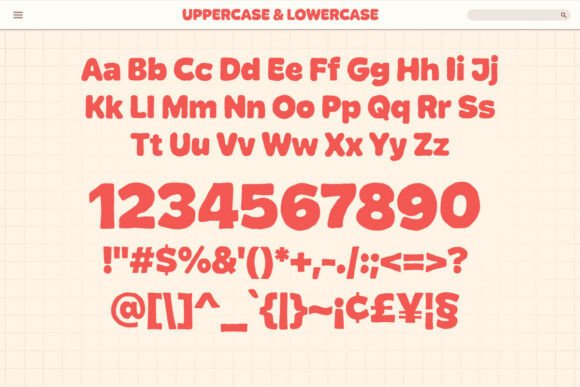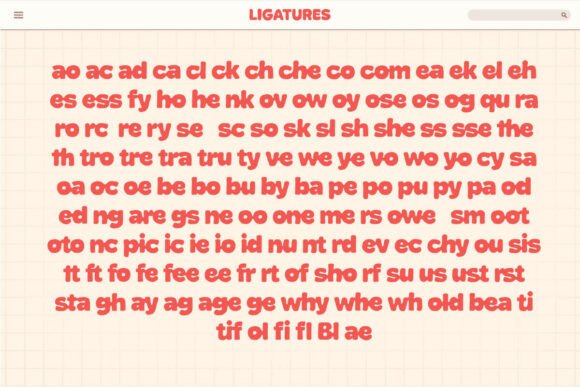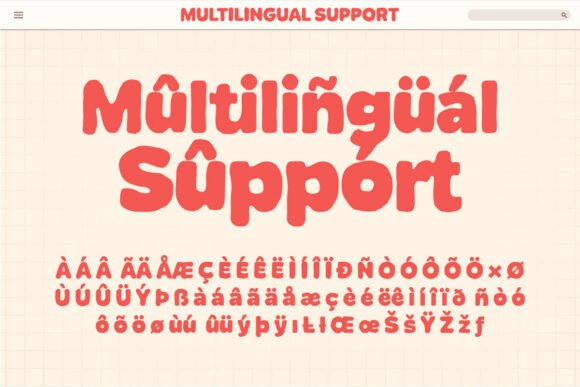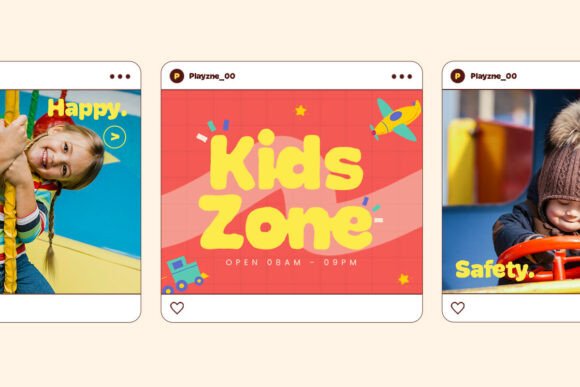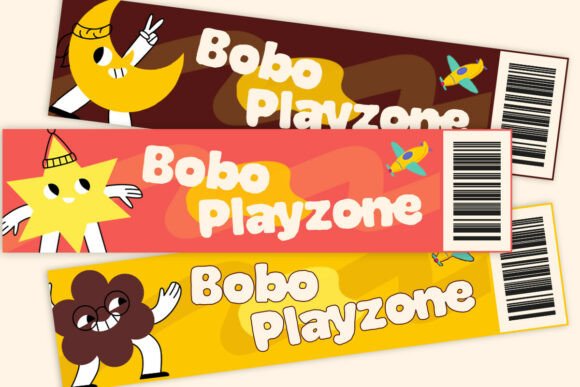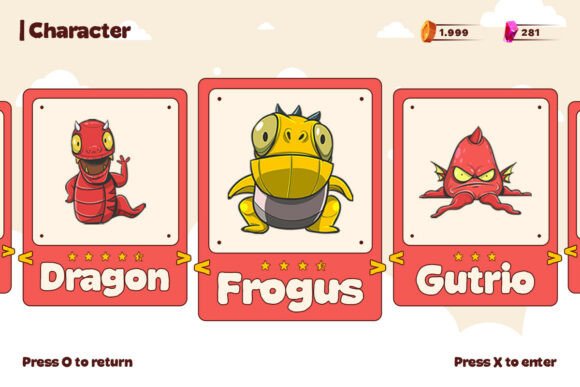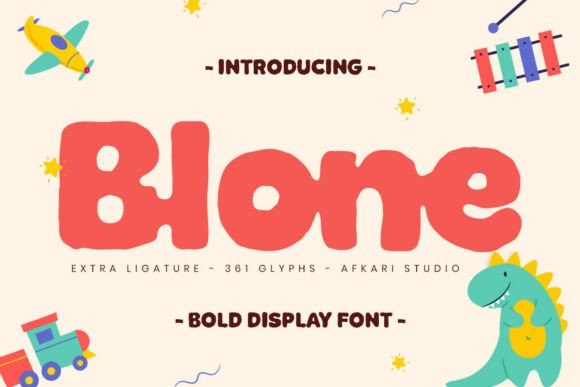
Unleash Your Design Potential with Blone Font
Have you ever been in the middle of a design project, and suddenly, you’re stuck on finding the perfect font? I recall a particularly frustrating experience while working on a branding project for a trendy streetwear label. My client wanted a bold, eye-catching font that would make their logo stand out, but I was struggling to find something that fit the bill. That’s when I discovered Blone Font, a game-changing bold display font that instantly elevated my design.
What Makes Blone Font Special?
Blone is a powerful bold display font crafted to make a strong and confident visual statement. Designed with thick letterforms, solid structure, and modern proportions, Blone delivers high-impact typography that instantly grabs attention. Its bold personality makes it the perfect choice for designers who want their headlines to stand out clearly and memorably.
Highlighted Features
• Uppercase, Lowercase
• Impactful Typography: Blone’s bold design ensures your headlines and titles make a lasting impression.
• Versatility: Perfect for branding, logo design, posters, packaging, apparel, merchandise, YouTube thumbnails, gaming graphics, sports designs, and social media content.
• 💯 Readability: The strong geometric construction combined with clean edges ensures excellent readability, even at large sizes.
⚠️ While Blone is incredibly versatile, it’s primarily designed for display purposes. It might not be the best choice for body text or smaller font sizes.
🤔 Some users might find the font a bit too bold for certain design applications, so it’s essential to use it judiciously.
The Story Behind Blone
Blone was designed with the goal of creating a font that would make a bold statement. Inspired by modern streetwear and sports branding, the designer aimed to craft a font that exudes confidence and energy. The result is a versatile font that can be used in various design applications, from logos and branding to posters and social media content.